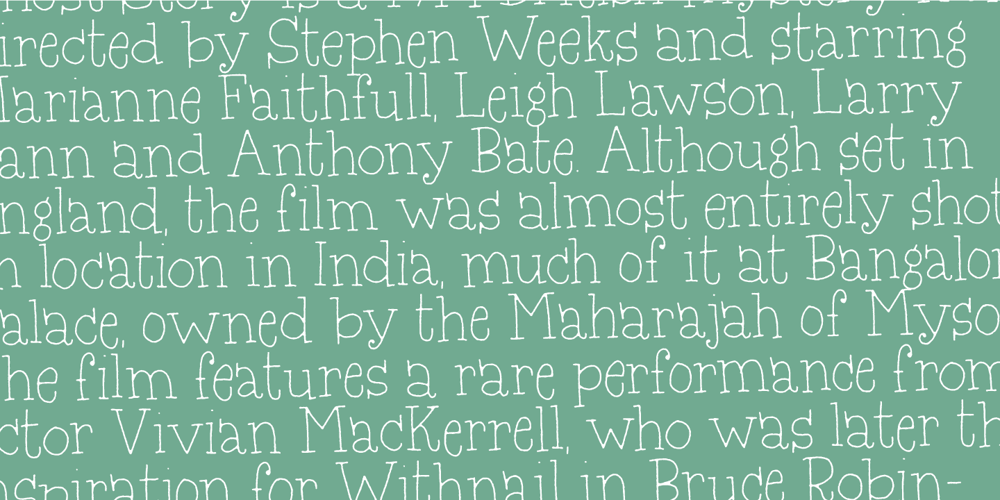
Silly Notes Font Family was designed by Jakob Fischer and published by PizzaDude.dk. Silly Notes contains 2 styles and family package options. The look of Silly Notes came to me in a dream. Maybe the inspiration came from when I played around with my father’s old typewriter. I’ve always fancied typewriters, the sounds it makes and of course the letters. However, I wanted more than “just another typewriter font” – so I put in some extra ingredients: comic, loose handwriting and a spoonful of pizzadude! Silly Notes comes with contextual alternates, which means that Silly Notes has 4 different lowercase letters that automatically cycle as you type. Of course the font also comes with multilingual support!